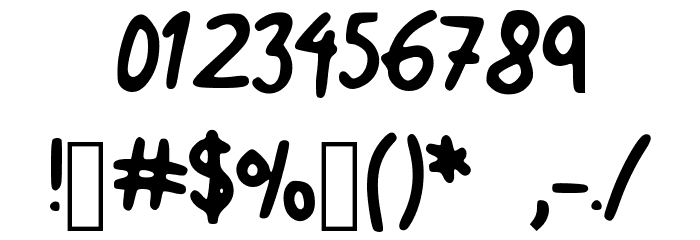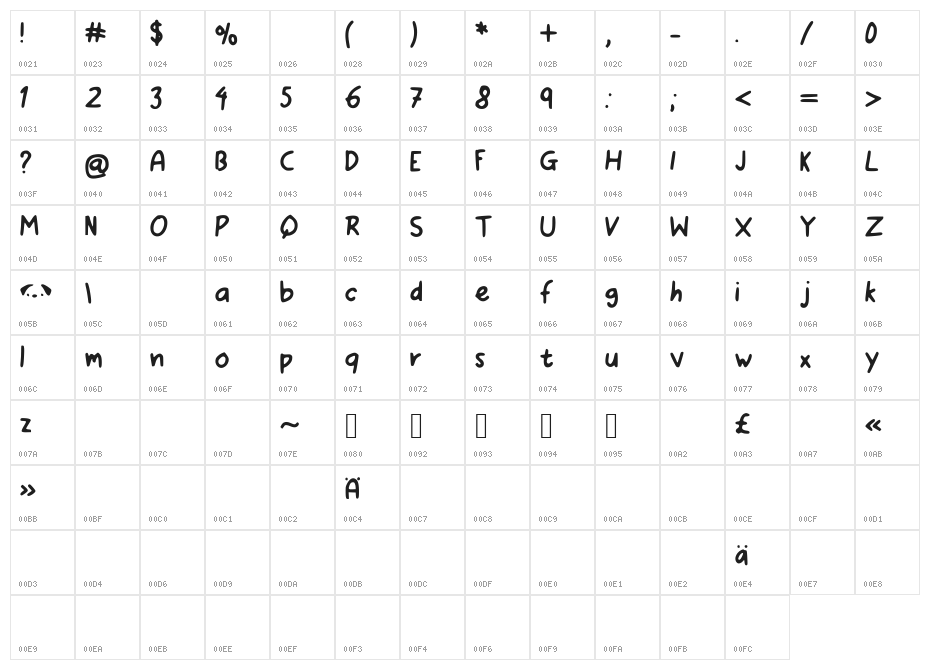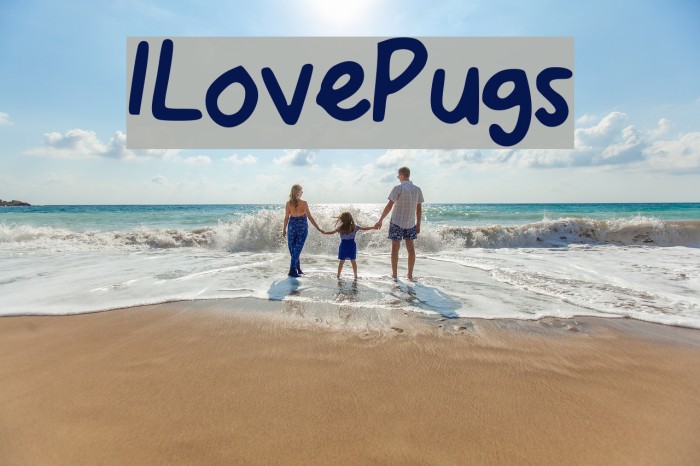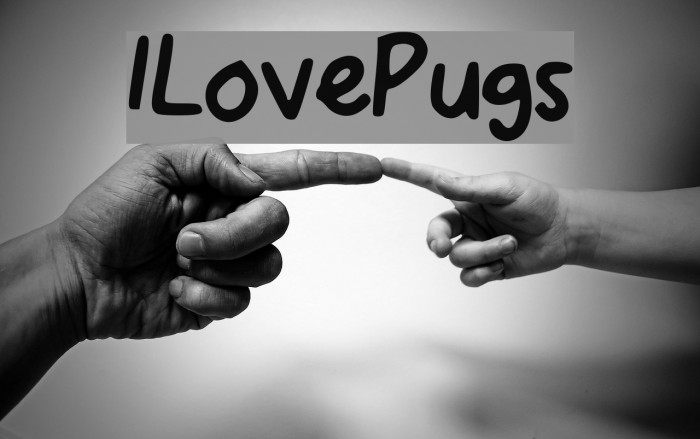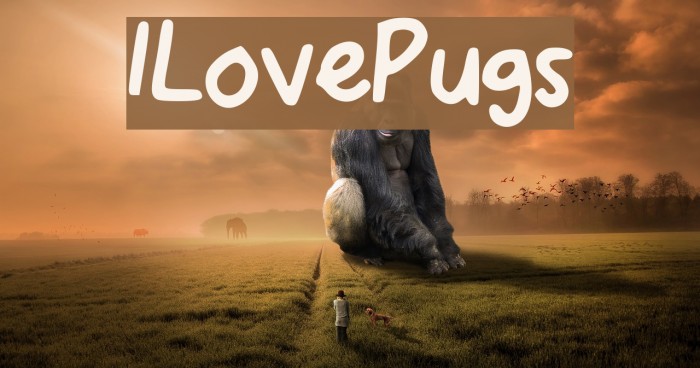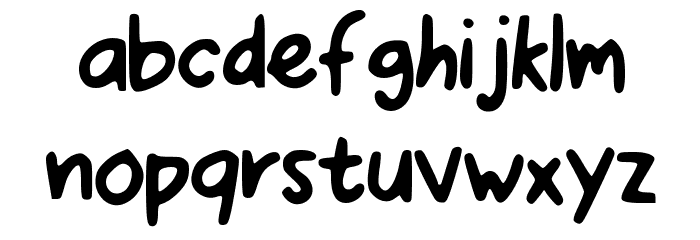
I_Love_Pugs Font
I_Love_Pugs Description
This playful and bold handwritten font exudes a casual and friendly vibe. The letters are rounded and slightly irregular, giving it a whimsical and approachable appearance. The uppercase and lowercase characters maintain a consistent style, with a slight tilt that adds to its informal charm. The numerals and special characters are equally playful, making this font suitable for creative and fun projects. Its bold strokes ensure readability while maintaining a unique personality.
| Proposed Projects | Ideal for children's books, playful branding, greeting cards, and social media graphics. |